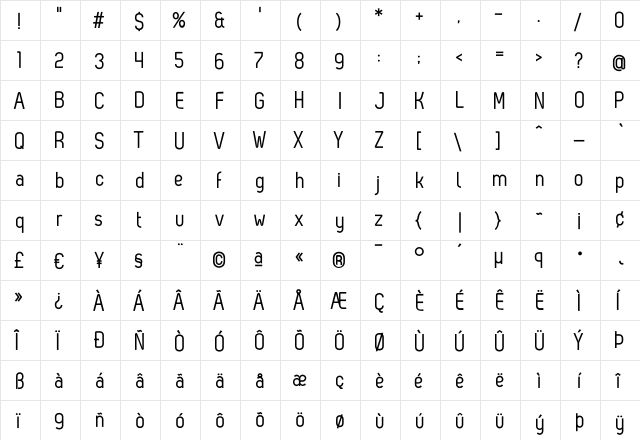
Zag Regular Regular
| Foundry | 頲009 Designed by Svetoslav Simov 順ontfabric, Inc |
Design Context for Zag Regular Typeface
Zag Regular takes a measured approach to typography — its balanced proportions and neutral character make it a reliable workhorse for both digital and print work.